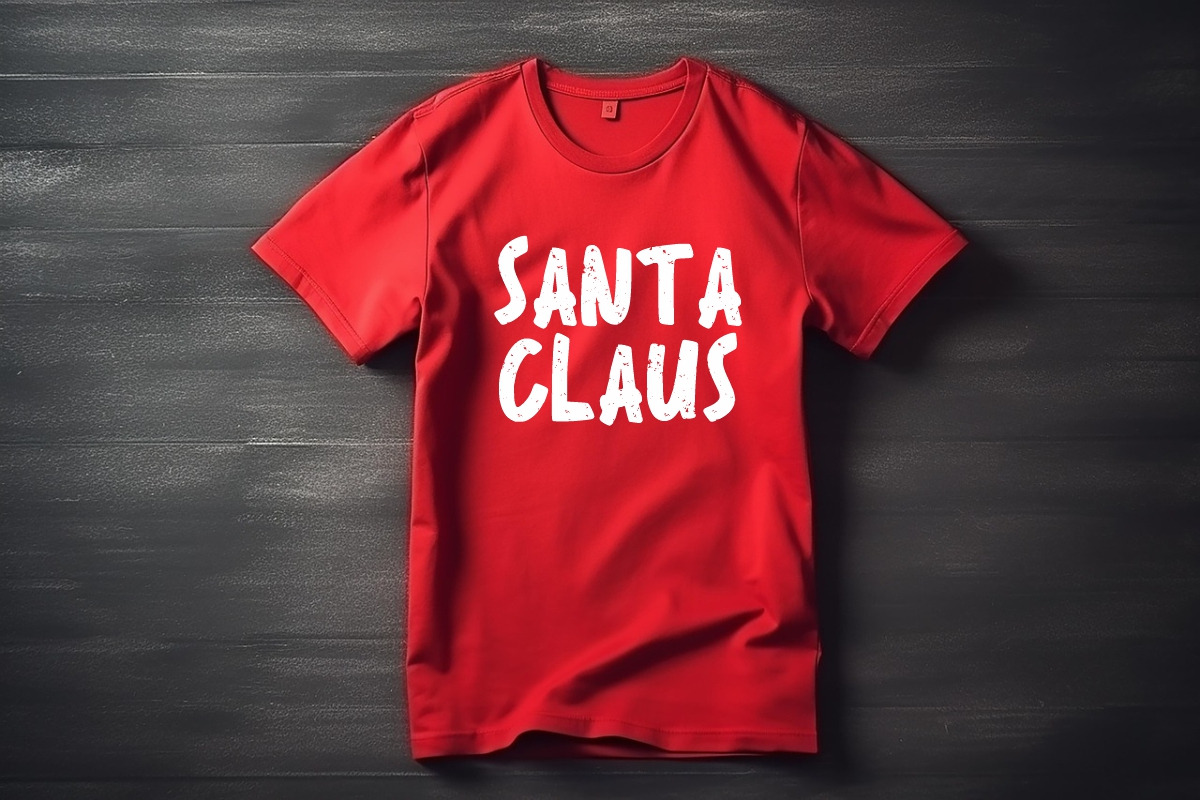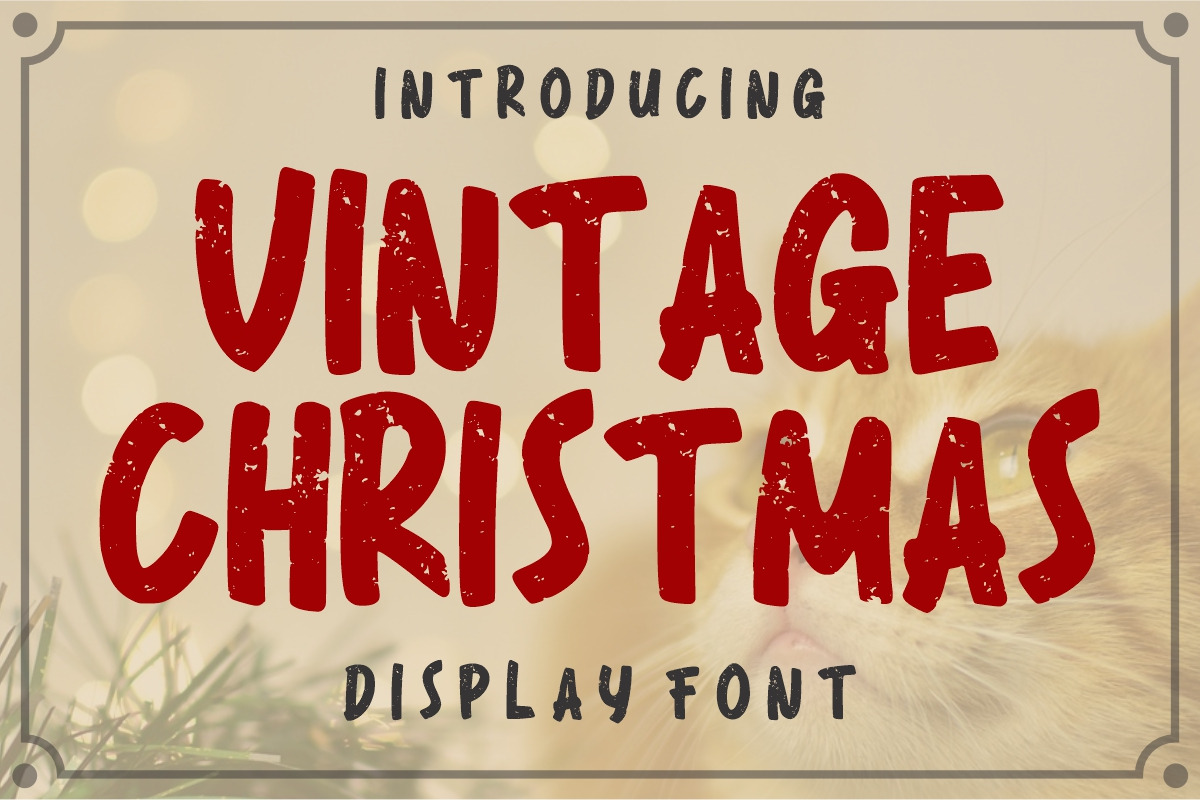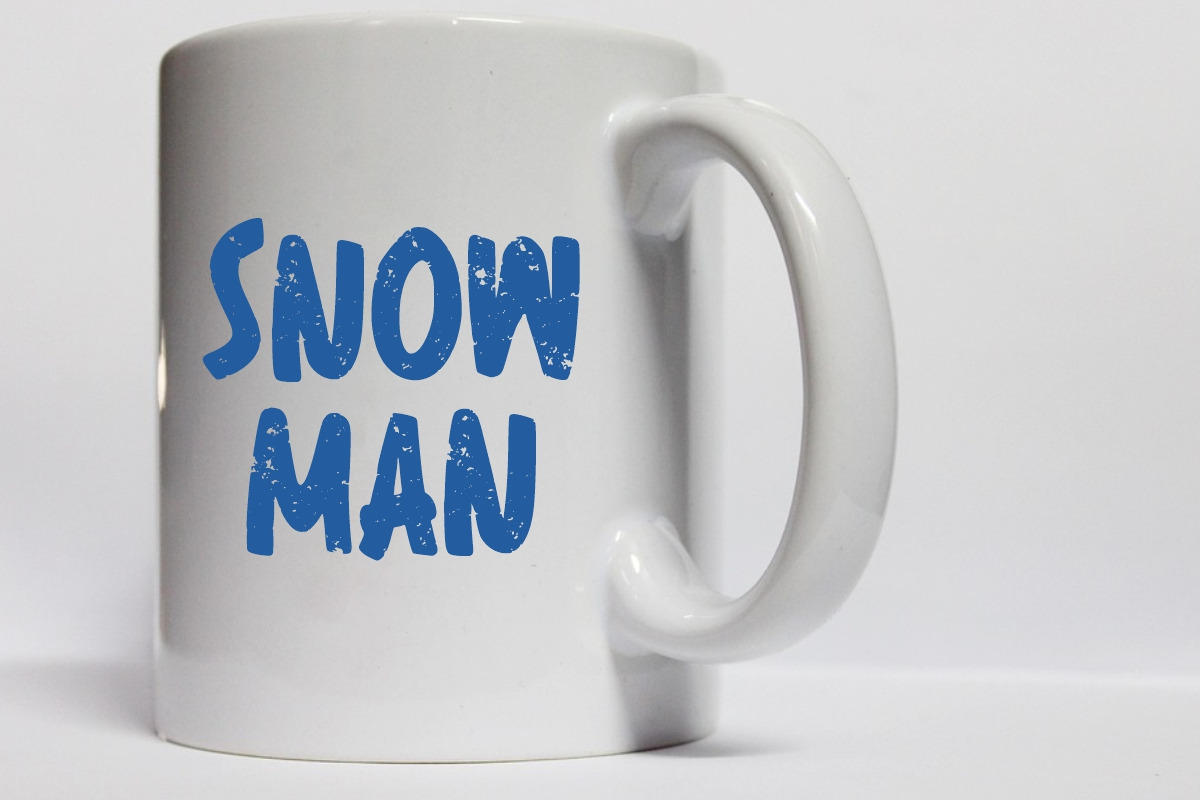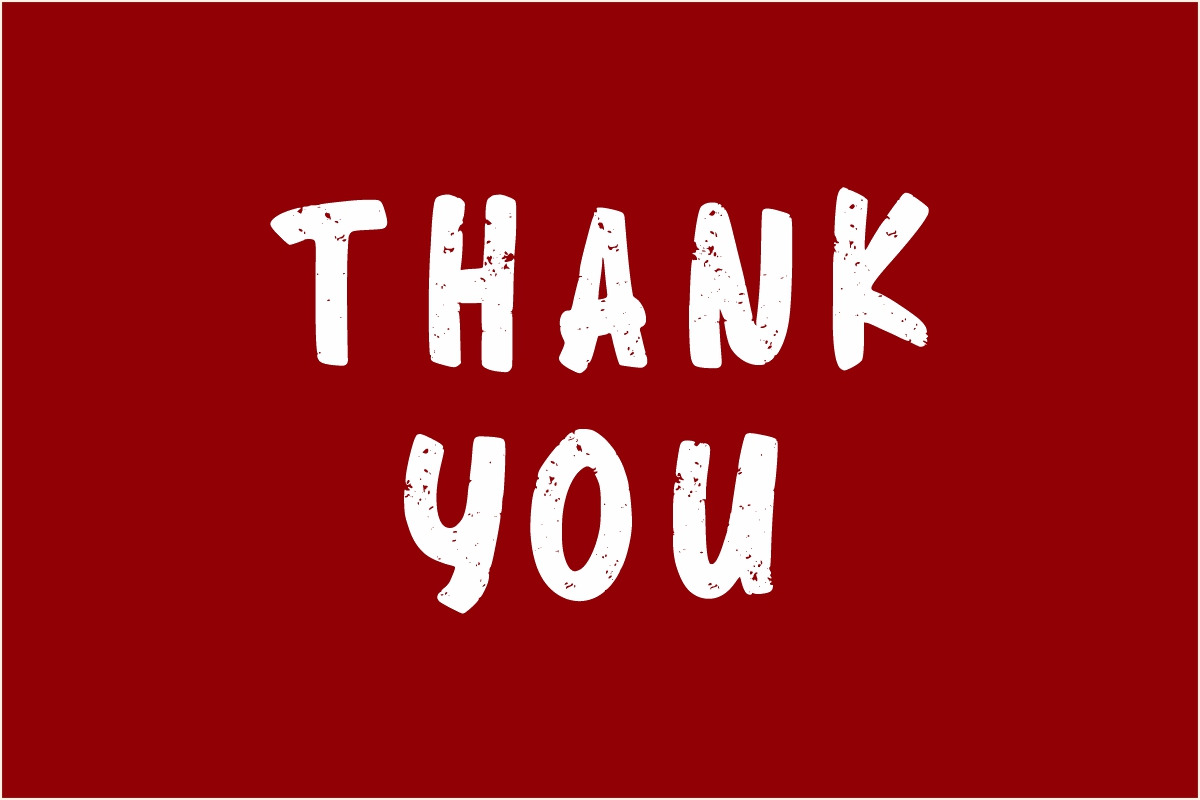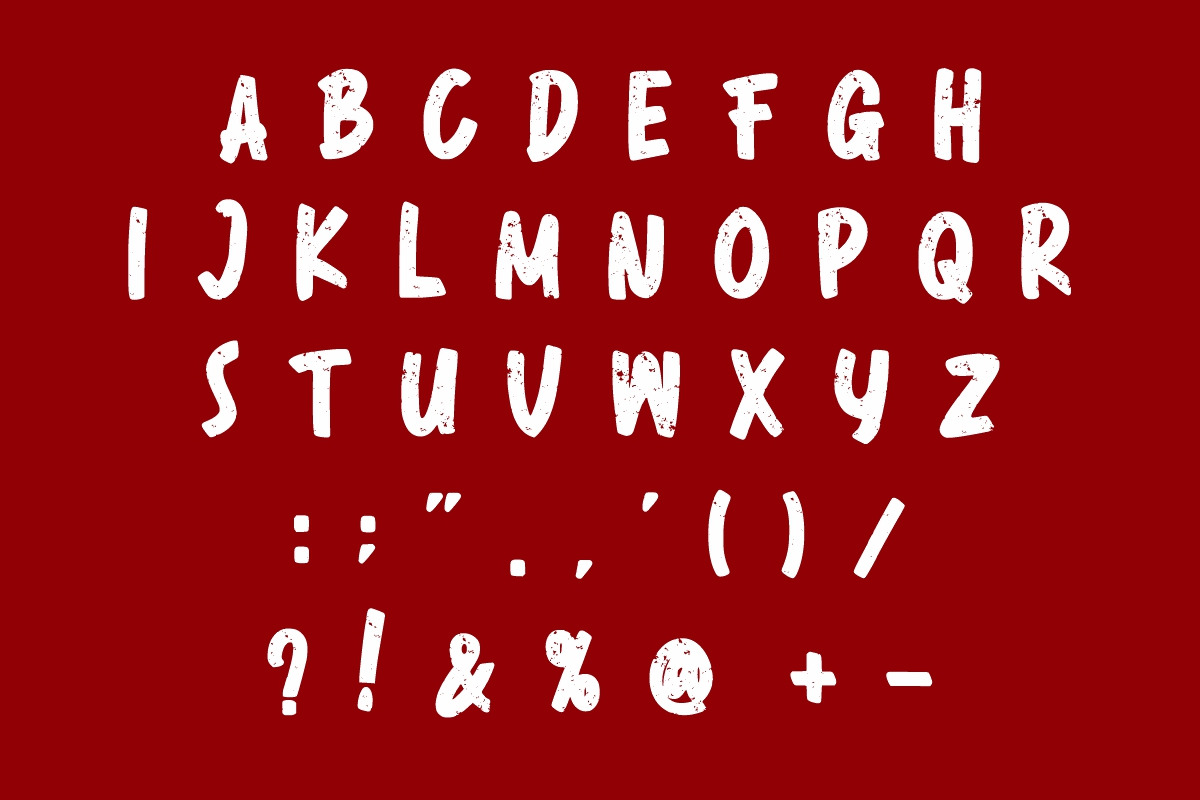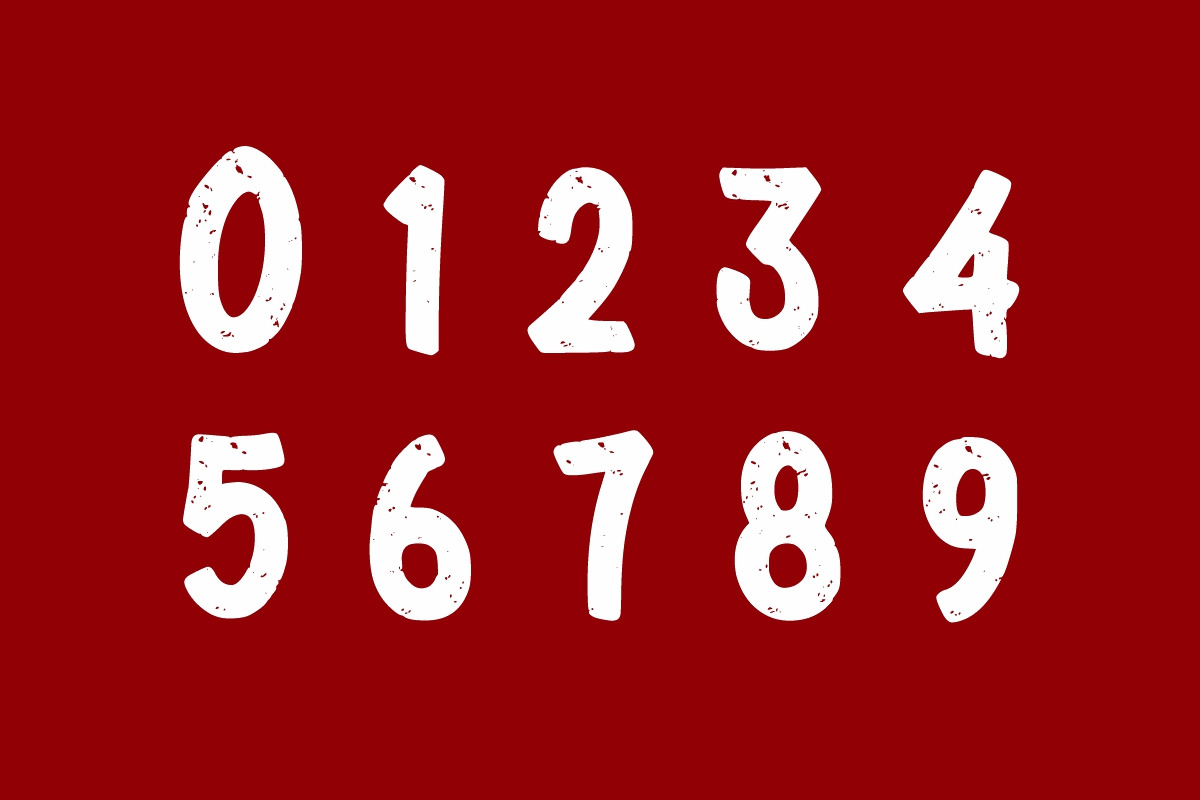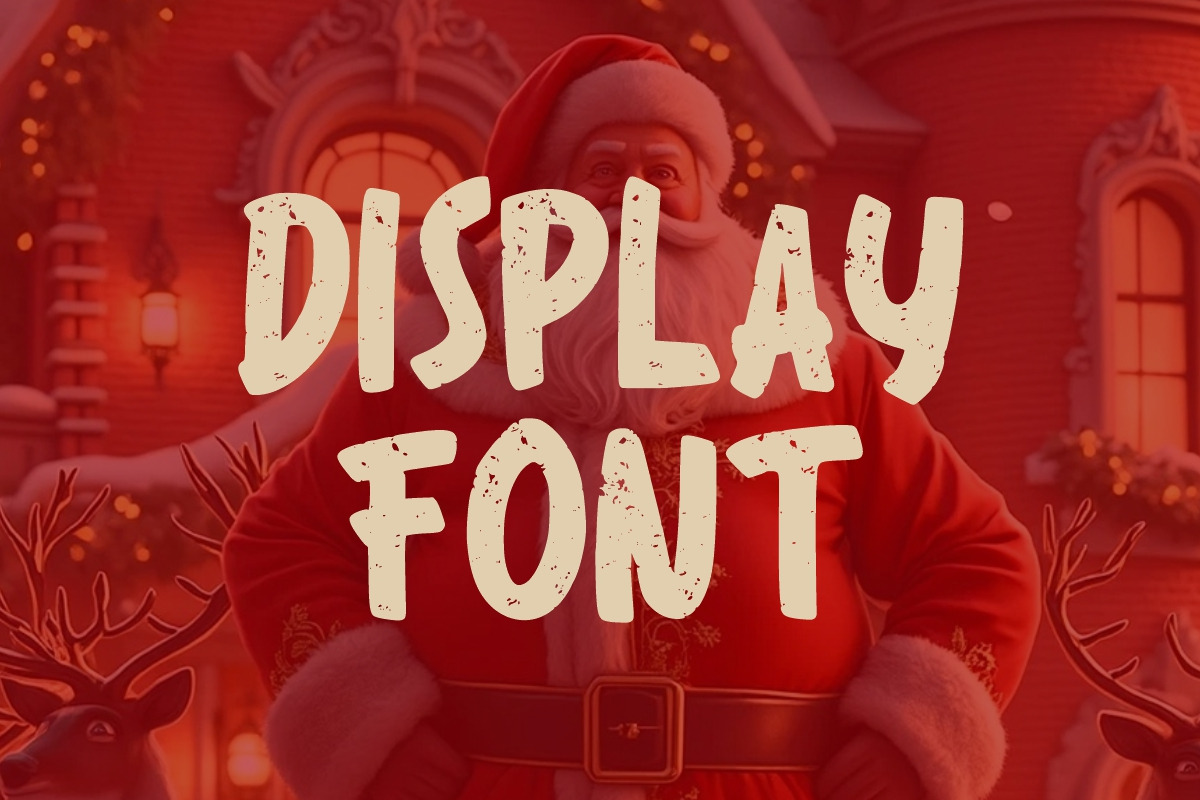
Vintage Christmas font
Vintage Christmas is a vintage and retro grunge Christmas font.
With bold, hand-painted letterforms and a weathered texture, this typeface evokes the cozy warmth of classic Christmases gone by.
It’s perfect for vintage holiday cards, farmhouse-style signs, gift tags, seasonal apparel, and festive social media graphics. The worn texture adds a handmade feel, while the strong letterforms keep your message merry and bright.
Whether you're creating rustic holiday decor or retro-inspired packaging, Vintage Christmas wraps your design in timeless holiday spirit.